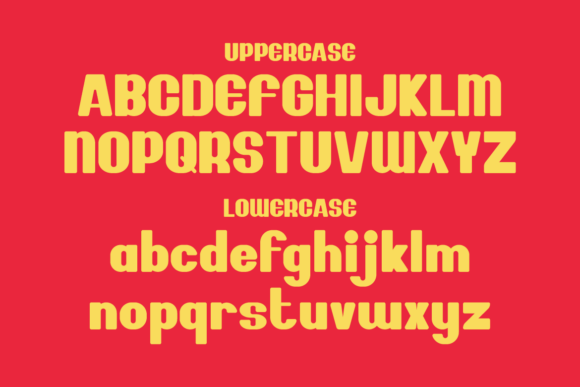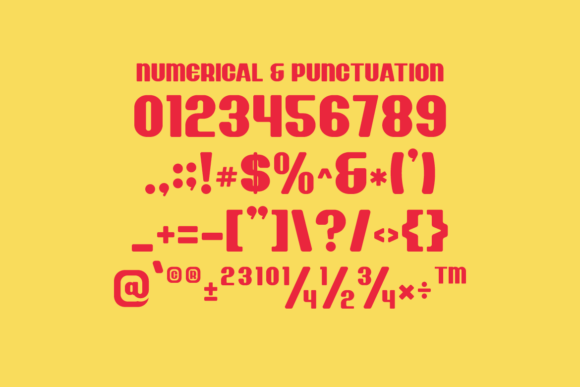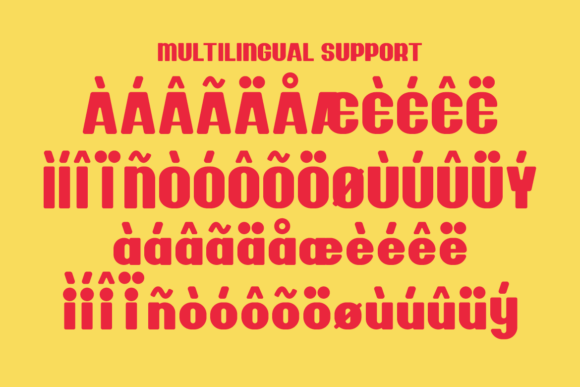
Introduction to Hemmo Font
Hemmo is a playful yet elegant rounded sans serif font designed to bring warmth and creativity to your projects.
Featuring smooth curves, balanced proportions, and a clean structure, Hemmo adds a friendly and modern vibe to any design .
Key Features of Hemmo Font
Why Choose Hemmo Font?